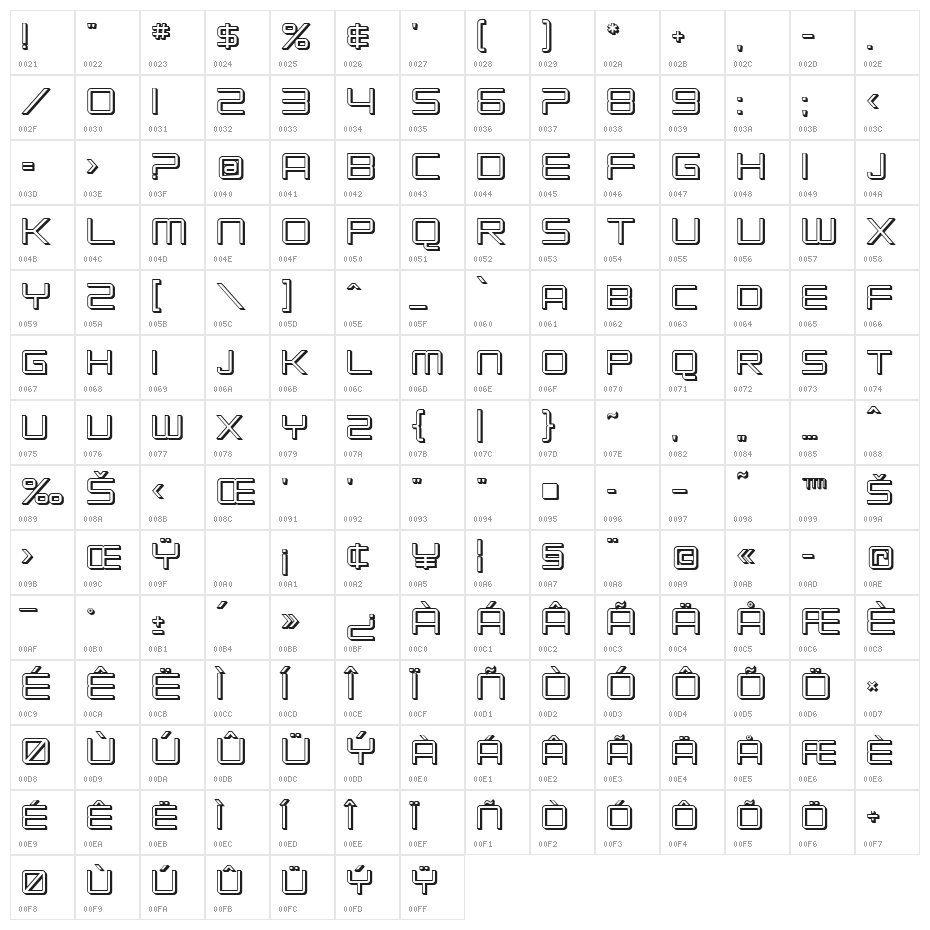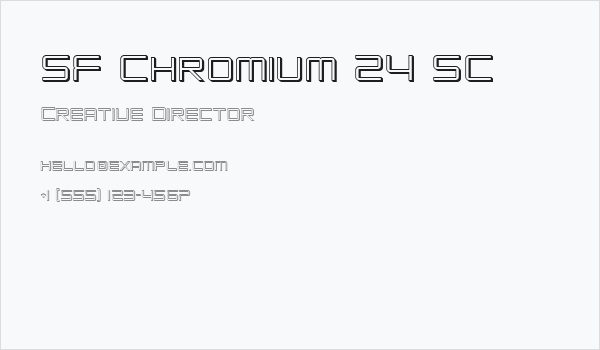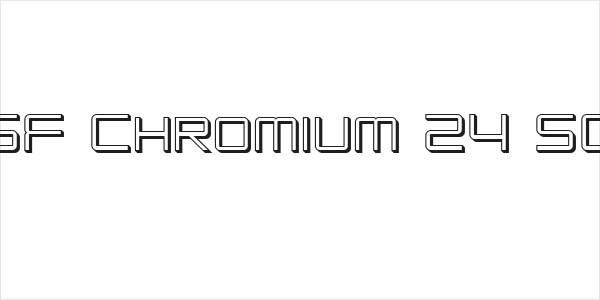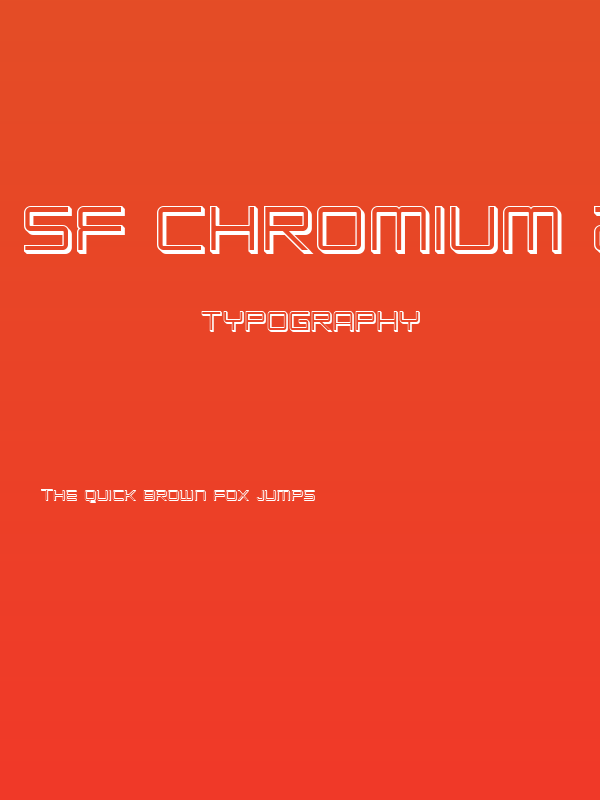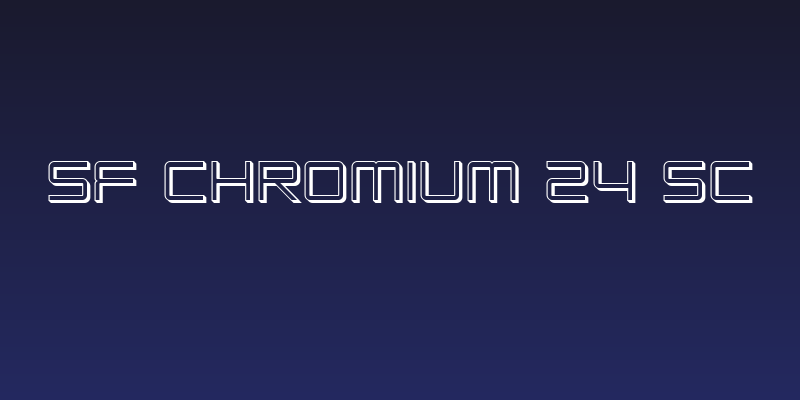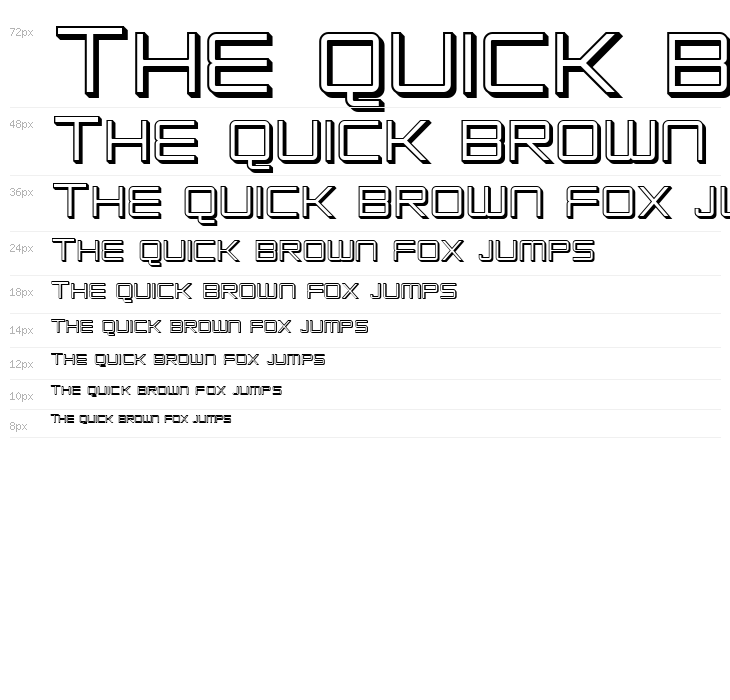
SF Chromium 24 SC Font
SF Chromium 24 SC Description
This font features a futuristic and geometric design, characterized by its bold, outlined letterforms. The uppercase and lowercase letters share a consistent, angular style with sharp edges and a uniform stroke width. The numerals and special characters maintain the same aesthetic, providing a cohesive look across all glyphs. The font's structure is clean and modern, making it suitable for digital and print media where a contemporary and tech-inspired appearance is desired.
| Proposed Projects | Ideal for technology branding, sci-fi themed designs, video game interfaces, and modern advertising campaigns. |